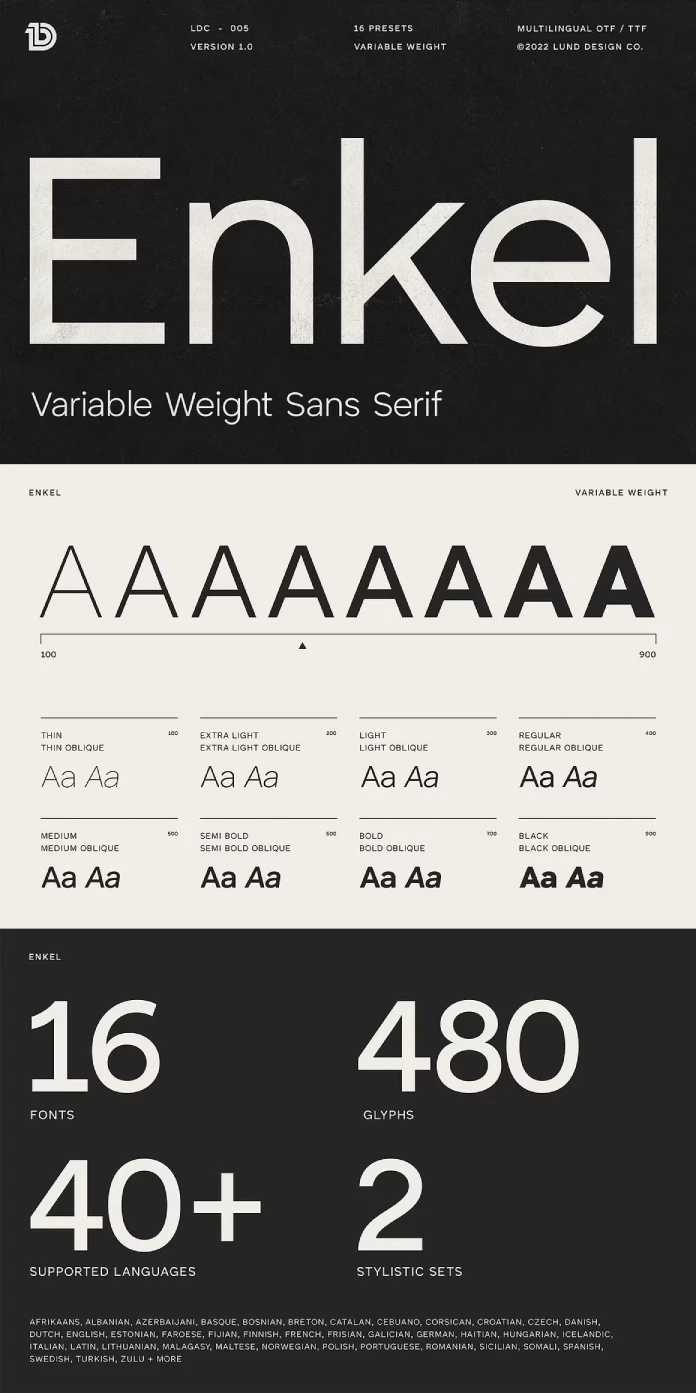
Meet ENKEL: The Variable Sans-Serif Font Family You’ll Love
Are you on the hunt for that perfect font? You know, the one that’s both stylish and super functional? It’s a common struggle, right? Finding a typeface that works for everything from bold headlines to paragraphs of body text can feel like searching for a unicorn. But what if I told you that your search might be over? Say hello to ENKEL, a variable sans-serif font family created by the talented folks at Lund Design Co. But what makes this font so special, and why should you consider adding it to your design toolkit? Let’s explore all the features it offers and what makes it a game-changer.
Enkel: A Font That Adapts to Your Needs
ENKEL beautifully blends Geometric and Neo-grotesque design elements. This offers a unique and versatile aesthetic that can be adapted to your specific design needs. This blend gives it a powerful presence when used for display purposes, making it ideal for headlines and titles. But ENKEL doesn’t just look good. It’s designed for legibility too. Thanks to its clean lines and carefully crafted letterforms, this typeface shines in smaller, long-form text as well. This makes it a fantastic choice for body text in articles, websites, and more.
16 Fonts in One
With ENKEL, you’re not just getting one font. You get access to 16 different font styles. This ensures you have the variety to tackle almost any design project. Whether you need a thin and delicate look, a strong and bold statement, or something in between, ENKEL has you covered. Styles include:
- Thin & Thin Oblique
- Extra Light & Extra Light Oblique
- Light & Light Oblique
- Regular & Regular Oblique
- Medium & Medium Oblique
- Semi Bold & Semi Bold Oblique
- Bold & Bold Oblique
- Black & Black Oblique
Multilingual Support and More
Lund Design Co. understands the importance of accessibility. That’s why ENKEL comes packed with features like accents and multilingual characters. The font supports 40+ languages. So whether you’re designing for an international audience or need to include specific characters in your text, ENKEL has you covered.
Furthermore, ENKEL includes 2 Stylistic Sets which can be valuable additions for designers looking for distinctive and creative options within a typeface.
480 Glyphs: A Designer’s Dream
With a glyph count of 480, ENKEL gives you plenty of options for customization. But what exactly are glyphs? Glyphs are essentially all the different characters, symbols, and variations included within a font file. The more glyphs available, the more flexibility you have to create unique and interesting typographic designs.
Final Thoughts on the ENKEL Font
With ENKEL, Lund Design Co. has created a versatile and well-designed font family. Its blend of style and functionality, combined with variable font technology, make it a strong contender for your next design project.
Consider ENKEL for branding materials, website design, editorial layouts, or any other project where typography plays a key role.